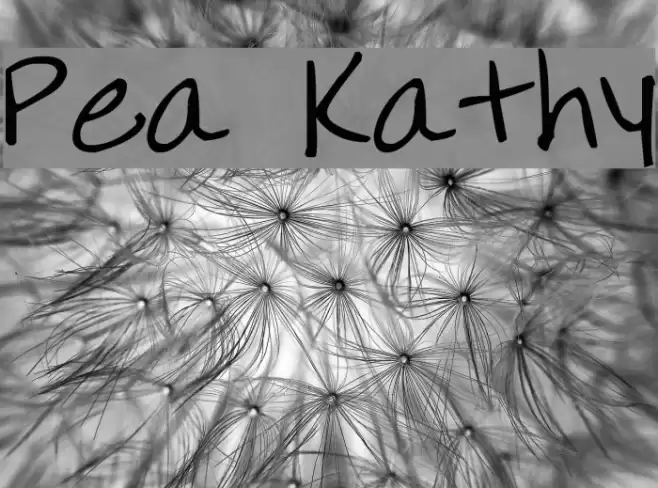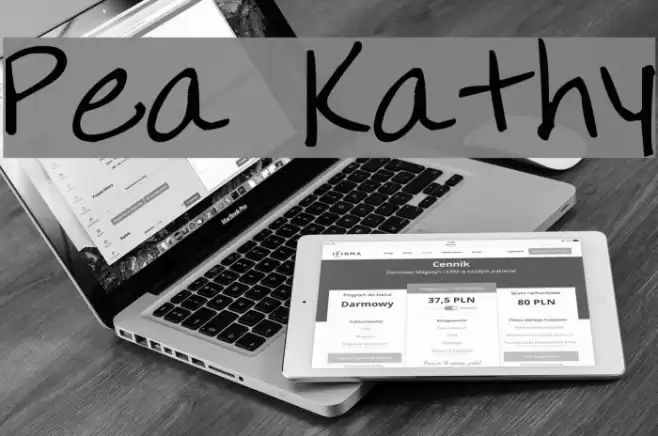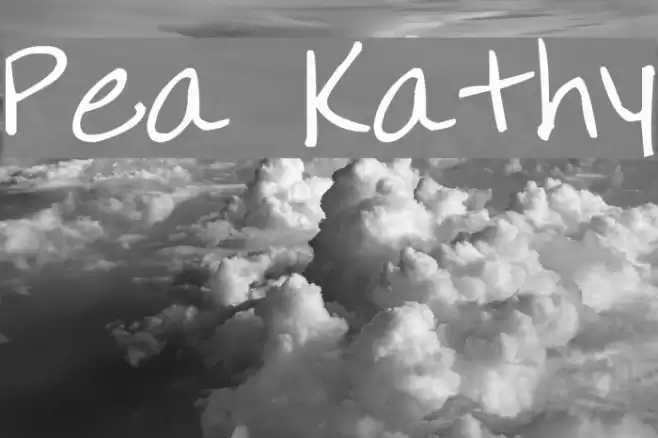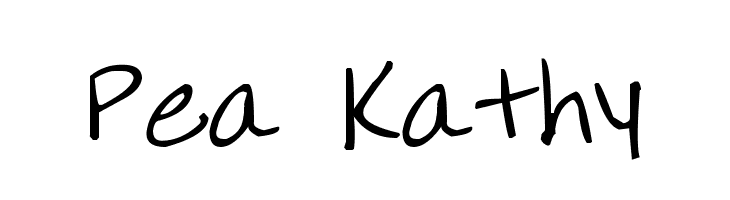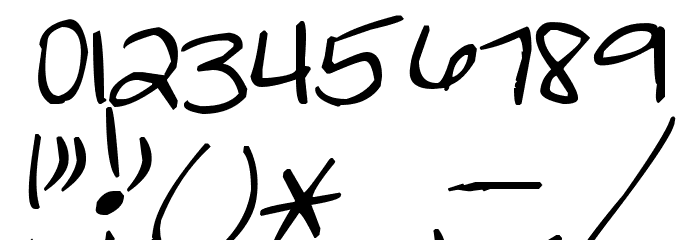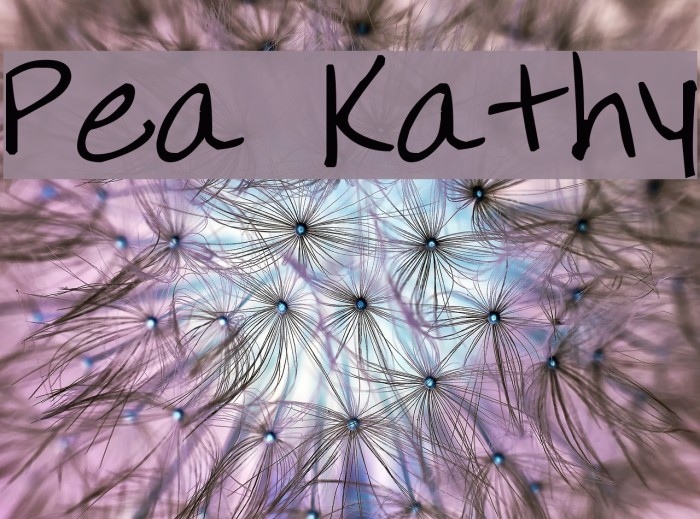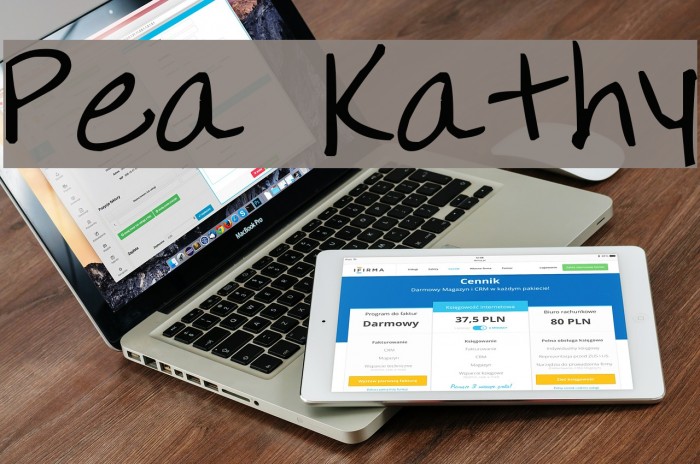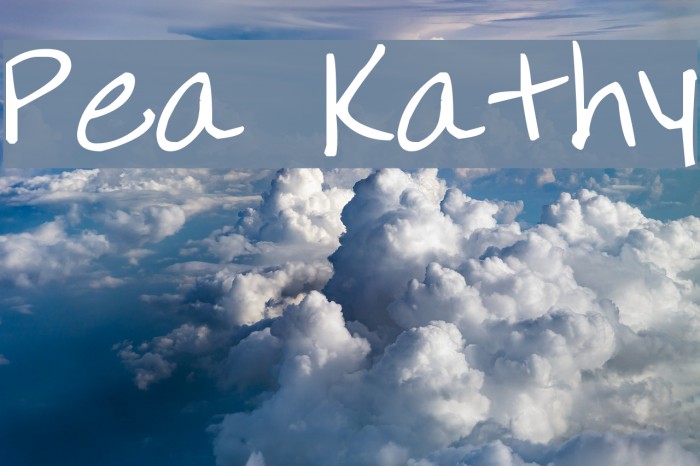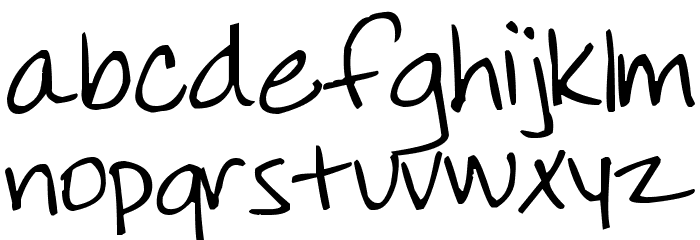
Pea Kathy
This font exudes a casual, handwritten style with a playful and informal appearance. The characters are slightly irregular, mimicking the natural flow of handwriting. The strokes are smooth and fluid, giving it a personal touch that feels approachable and friendly. The uppercase and lowercase letters maintain a consistent style, with rounded edges and a slight slant, enhancing its handwritten feel. The numbers and special characters follow the same aesthetic, ensuring a cohesive look across all elements. This font is perfect for projects that require a personal, human touch, such as greeting cards, personal notes, or informal invitations.
A playful, handwritten-style font with smooth, fluid strokes and a casual appearance.
- Proposed Projects: Ideal for greeting cards, personal notes, informal invitations, and creative projects needing a personal touch.
- Overall Style: Casual, Playful
- Use Case: Logos, Headlines, Informal Text